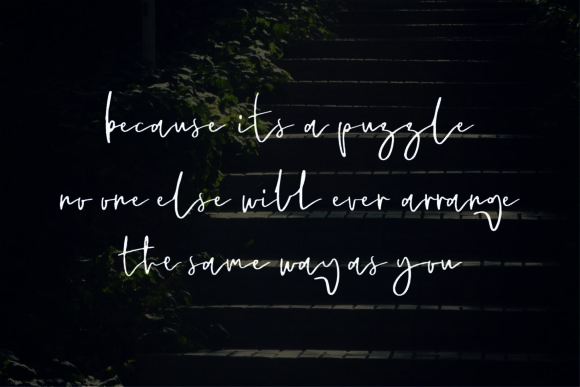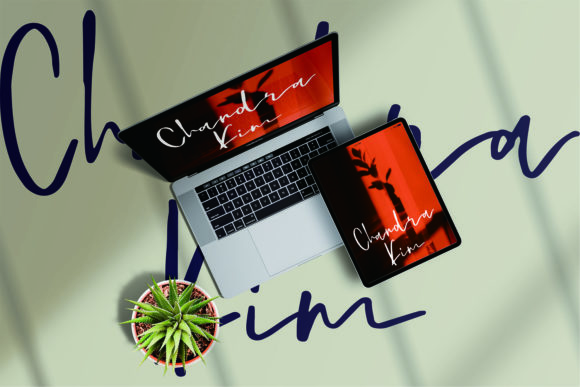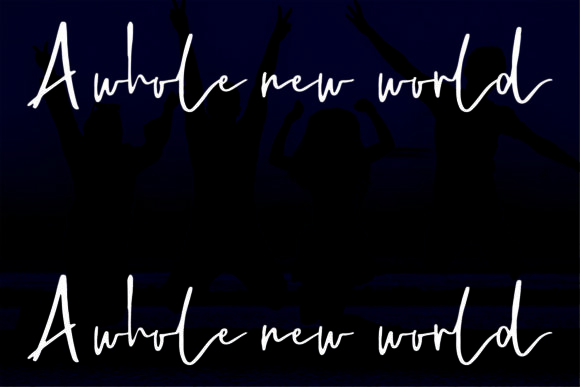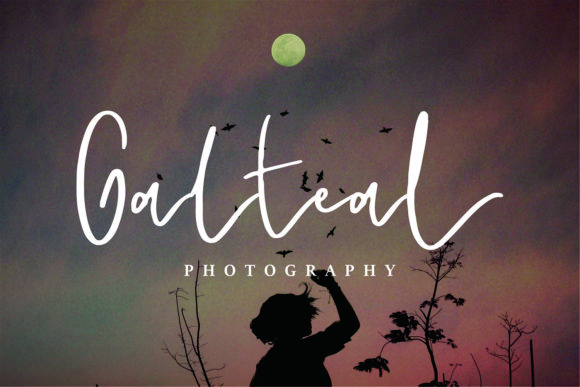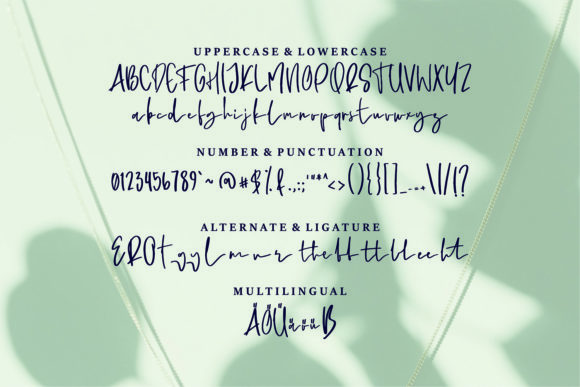
The Hesper Font
About The Hesper Font
The HesperĀ is a chic, stylish script font that emanates sophistication and versatility. Its luxurious alternates and ligatures make this font the perfect match for any project.